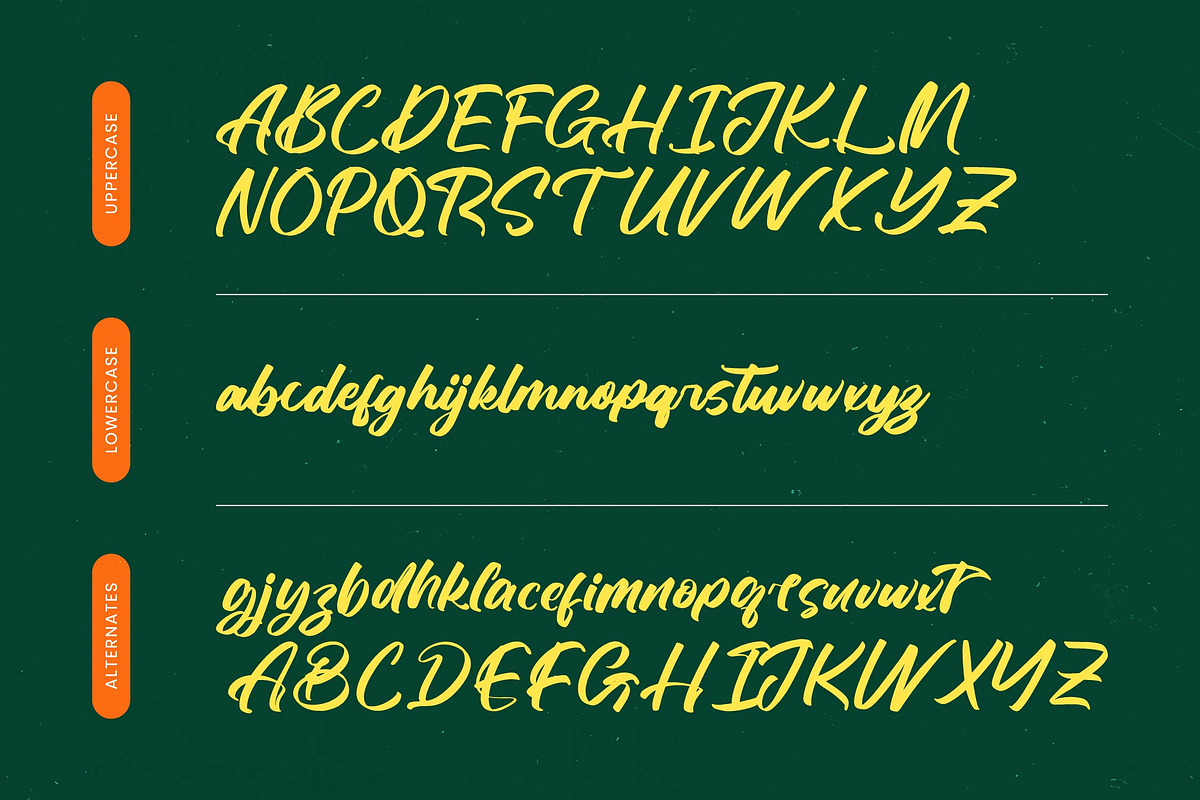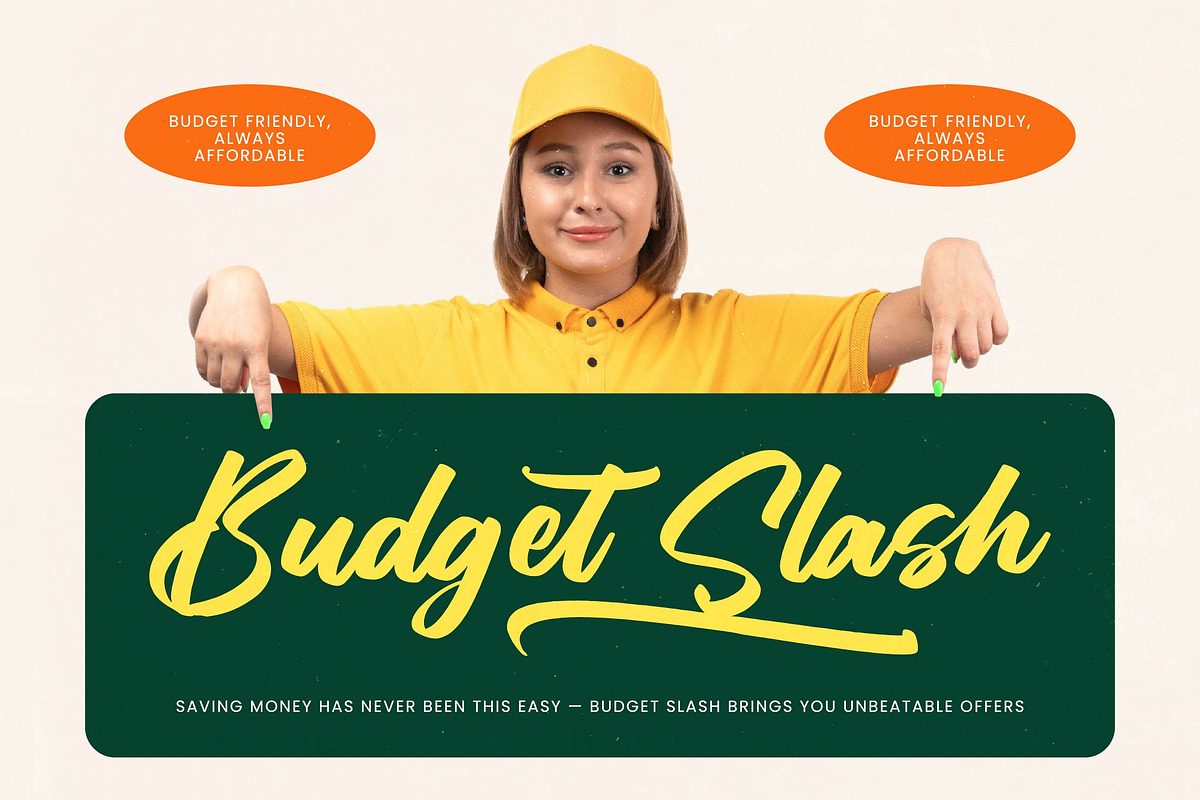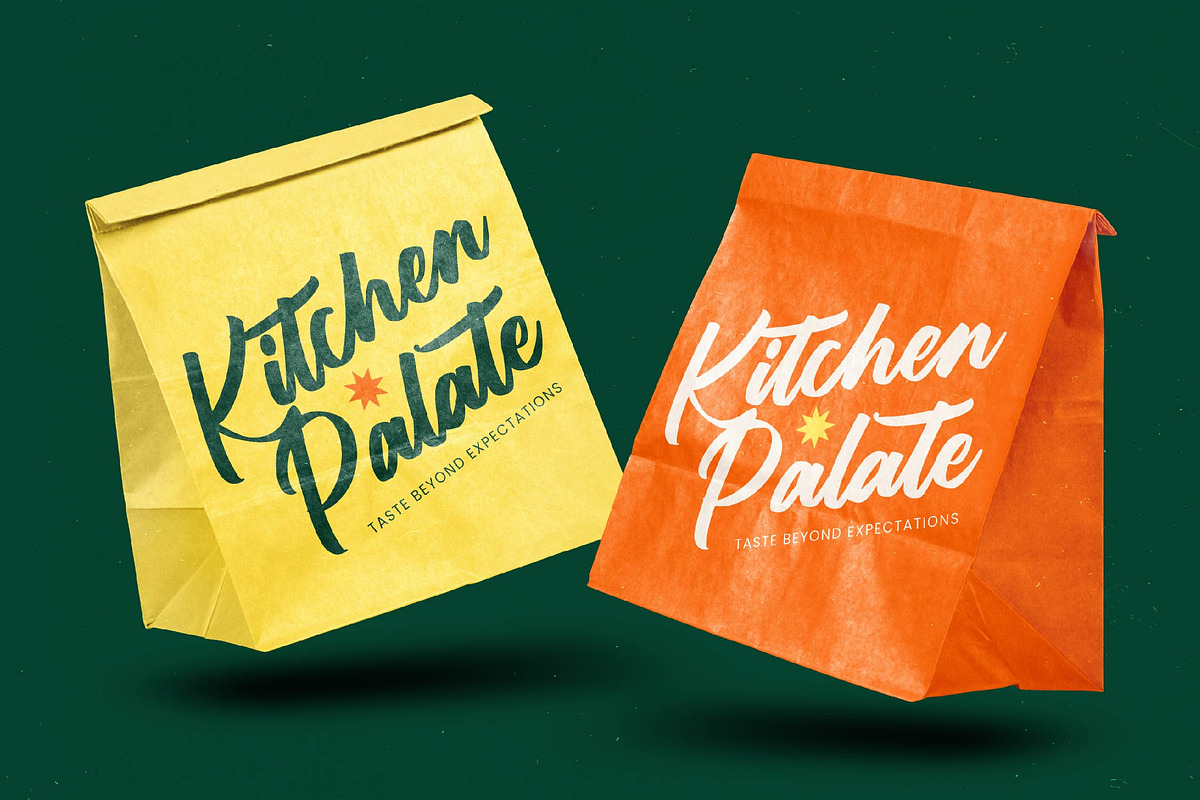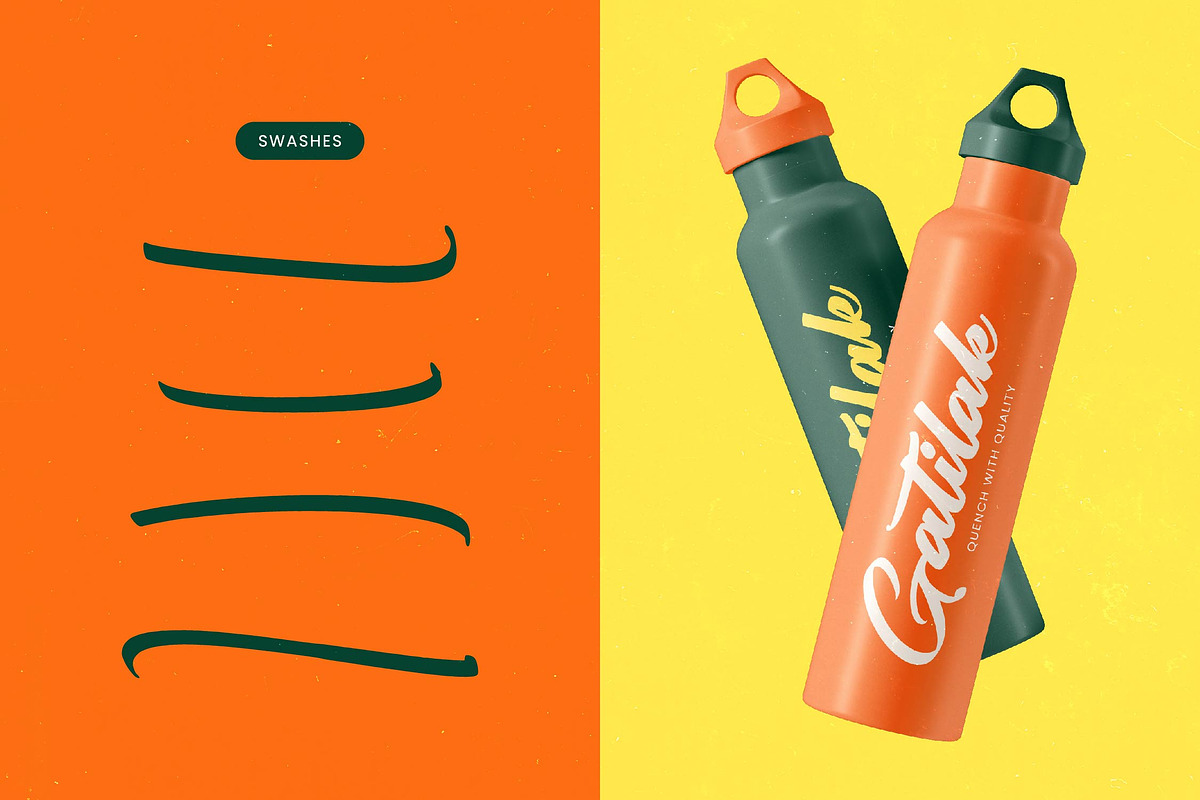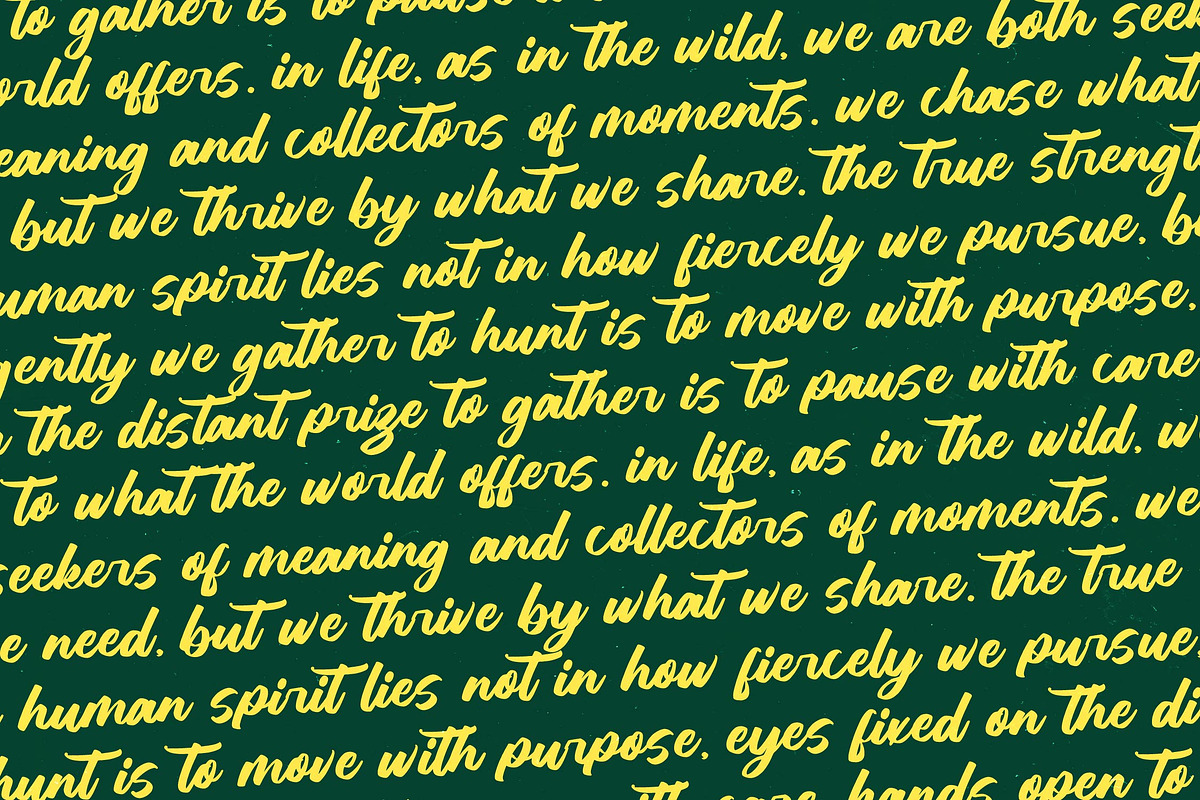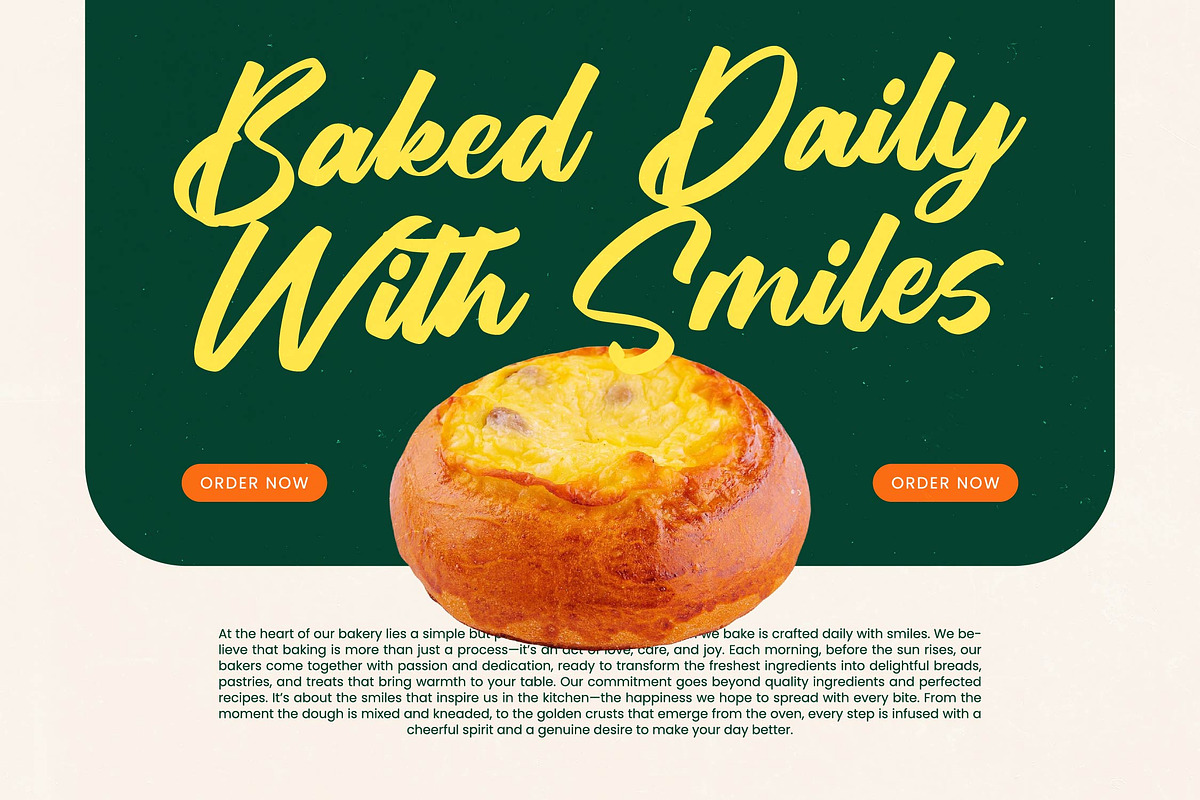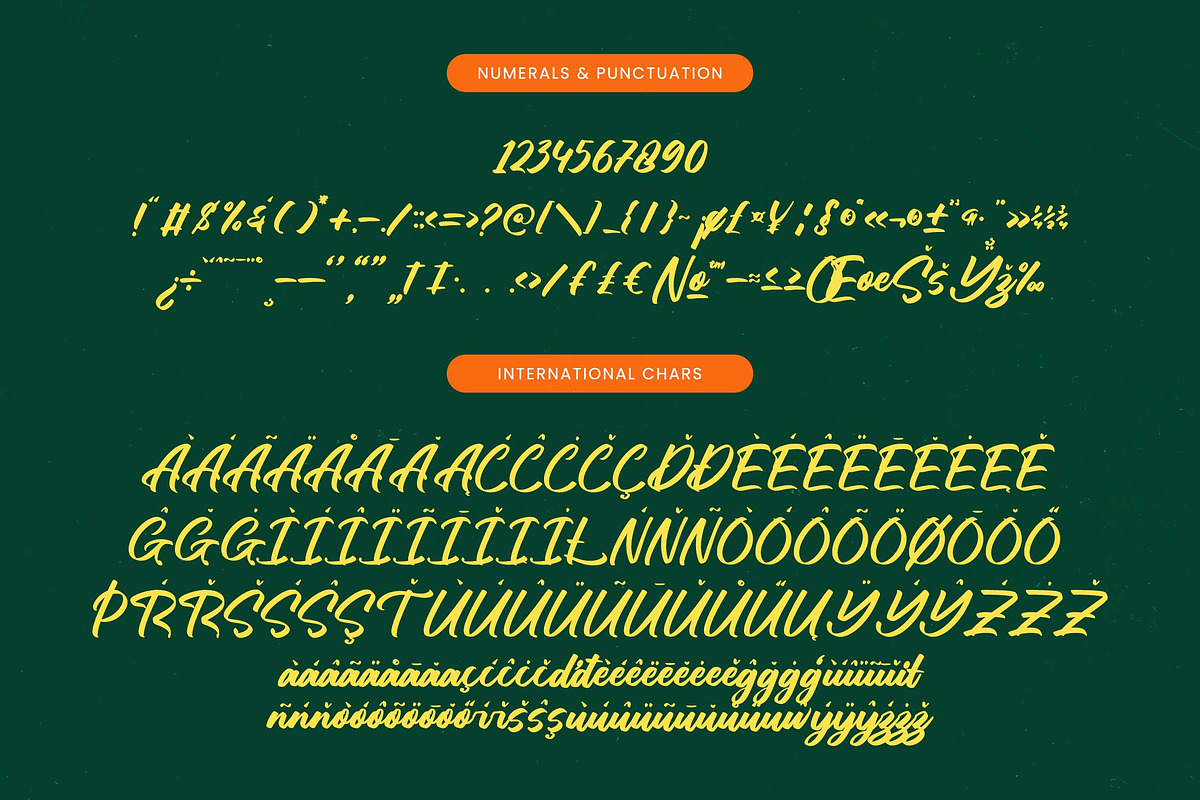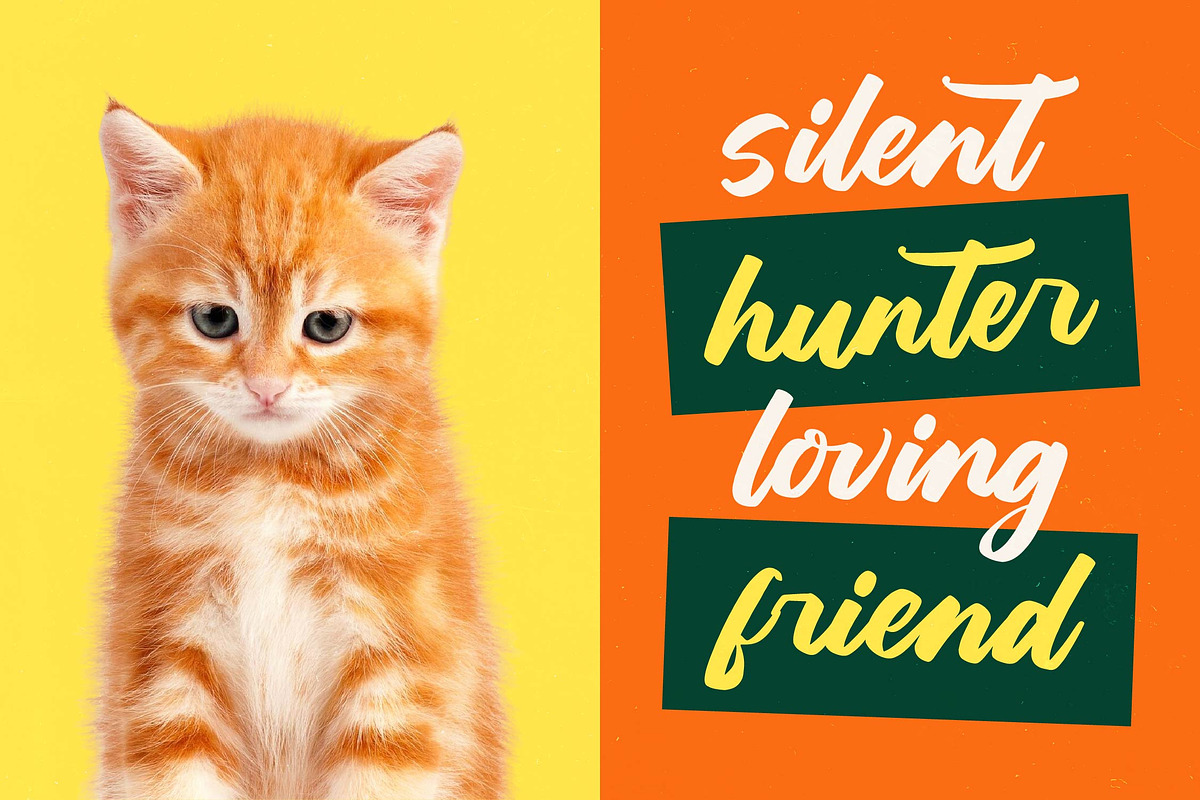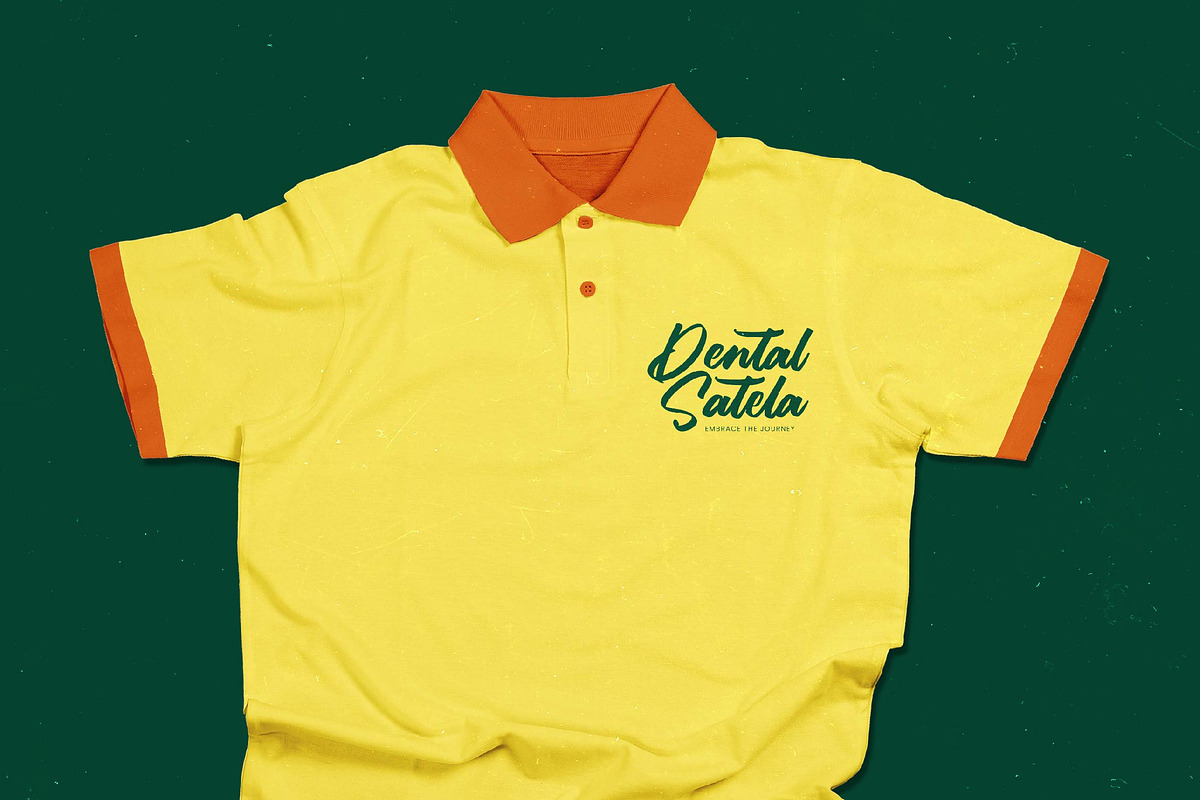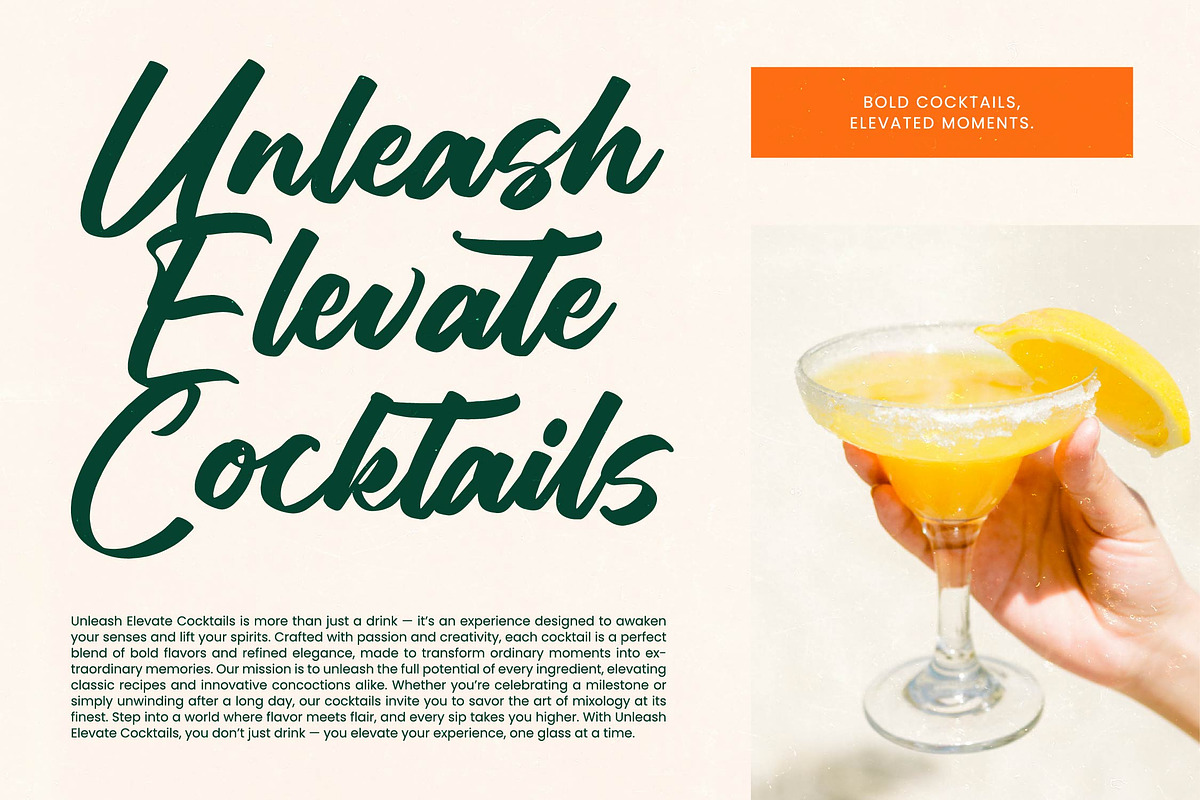
Hunting Gather Bold Handwritten Font
Hunting Gather - Bold Handwritten Font , from Letterena, is a Luxury Script font, suitable for any projects such as: logos, branding projects, homeware designs, product packaging, mugs, quotes, posters, shopping bags, t-shirts, book covers, name card, invitation cards, greeting cards, label, photography, watermark, special events, and all your other luxury and beautiful projects that need a Luxury Script taste.
- 175 Ligature 41 Alternate & 04 Swashes